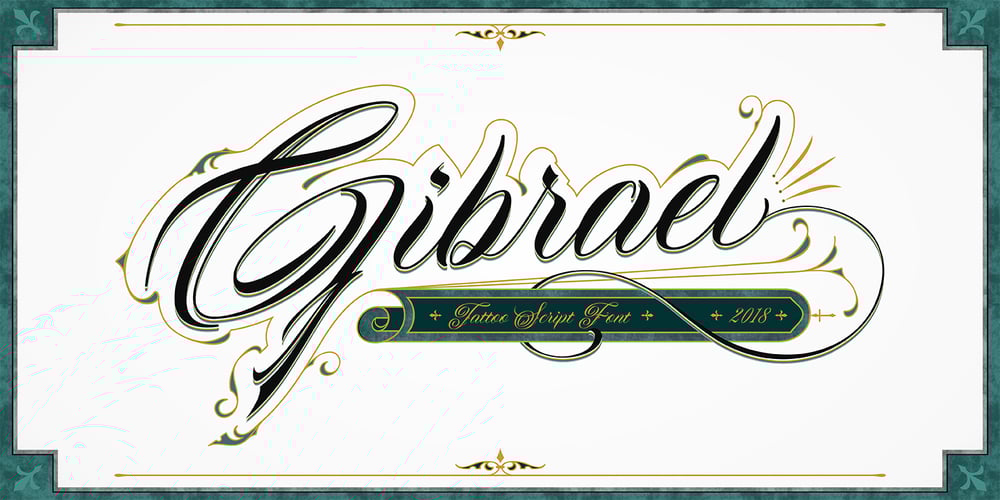
Gibrael Font Family was designed by Teuku Riski Firmana and published by TRF. Gibrael contains 1 styles and family package options. Gibrael is tattoo script style font. Truly a perfect script for any project that’s need delicate typeface such as custom name, greeting card, create logos, etc. A handy font for tattoo designer and artsy creative people! It’s a beautiful, elegant, clean and unique typeface you need to have! Contains over 590+ glyphs, it has many alternate characters so you can make a beautiful decorative type easily and multiple language support.